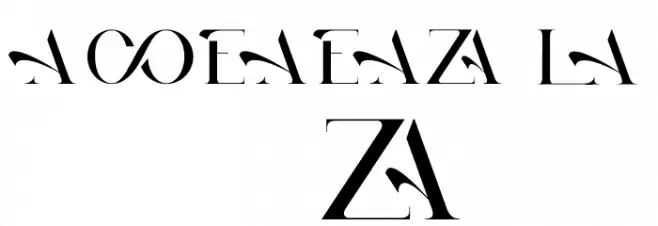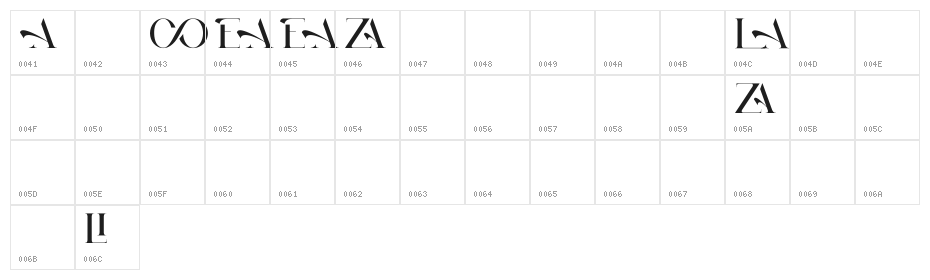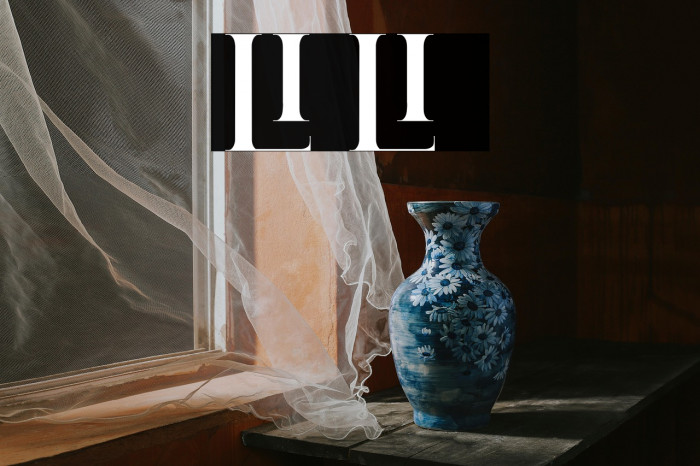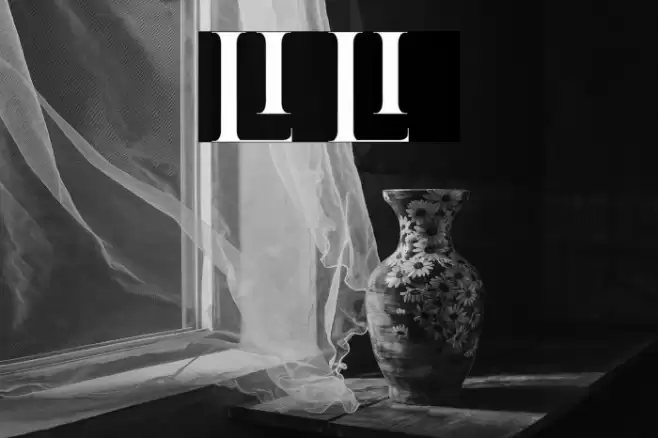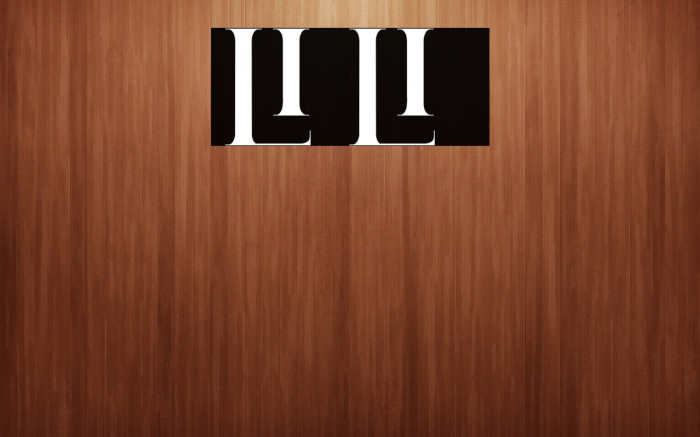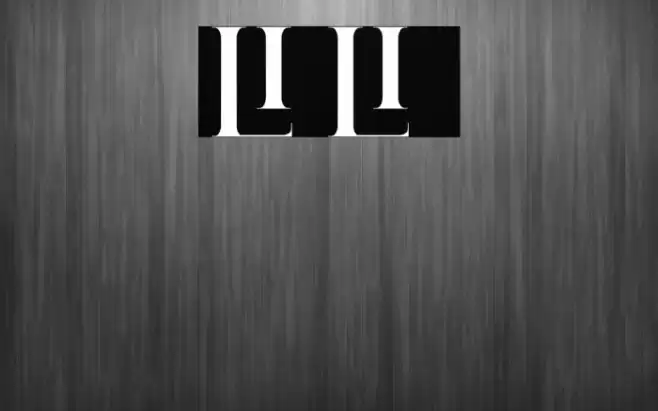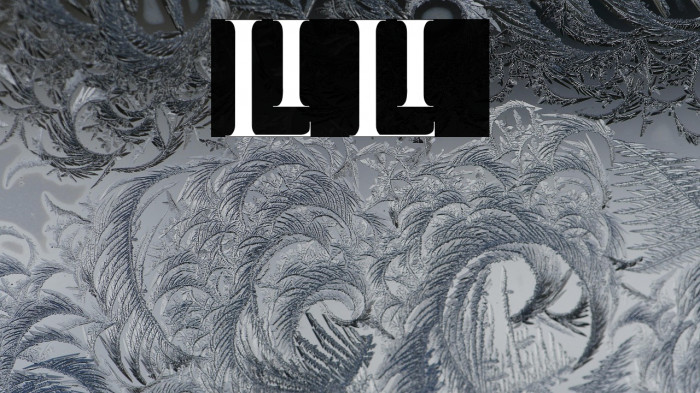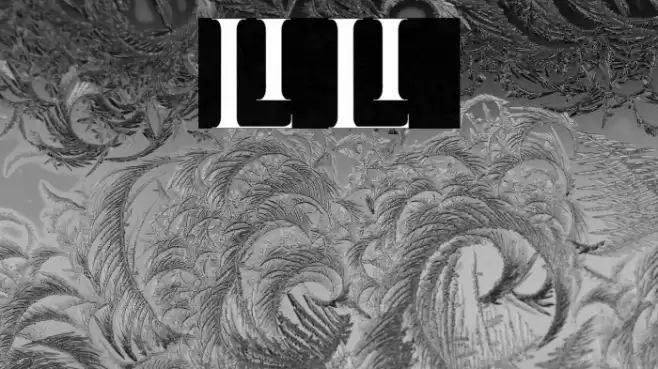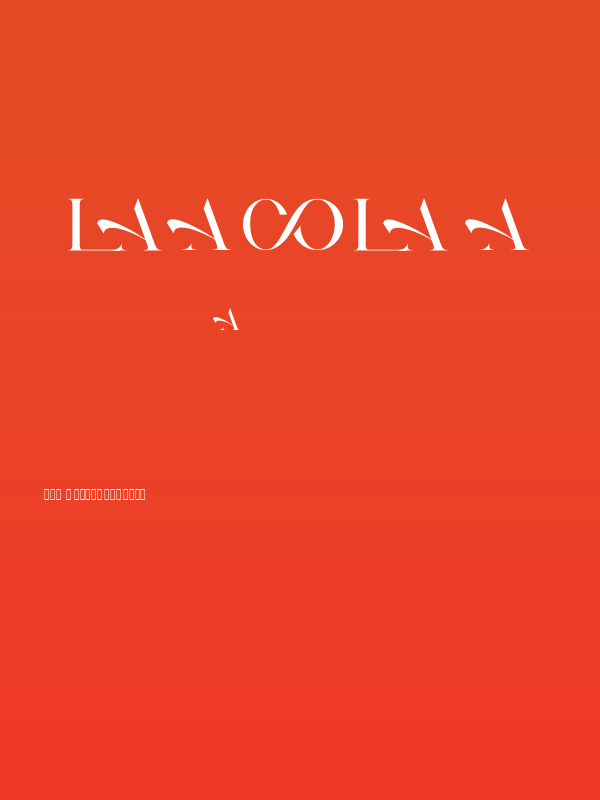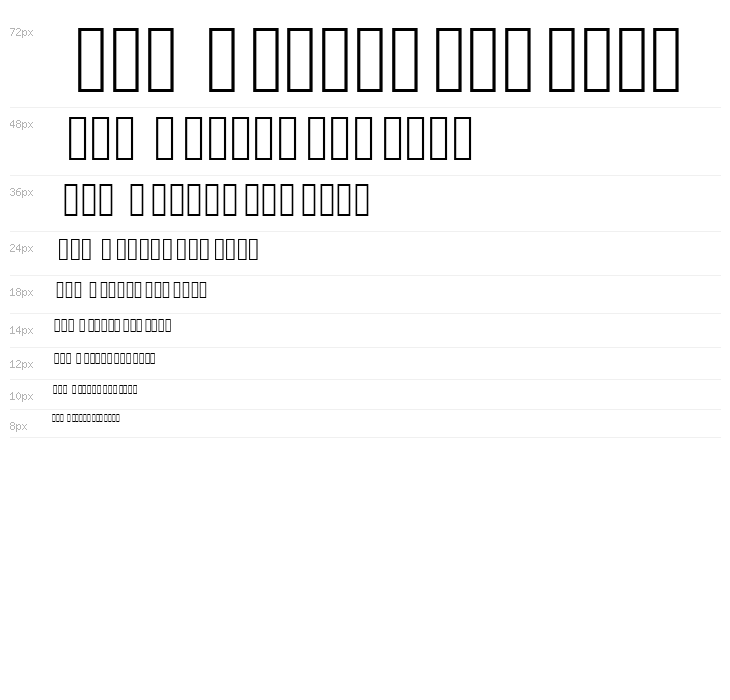
Blancoliga Font
Blancoliga Description
This font features a highly decorative and artistic style, characterized by its unique and intricate letterforms. Each character is adorned with elaborate flourishes and curves, giving it a distinct and elegant appearance. The font's design is reminiscent of calligraphic styles, with a modern twist that incorporates bold and striking elements. The overall aesthetic is both sophisticated and eye-catching, making it suitable for projects that require a touch of elegance and flair. The font's high contrast between thick and thin strokes adds to its dramatic and stylish look.
| Overall Style | Modern Decorative |
| Proposed Projects | Ideal for luxury branding, wedding invitations, high-end product packaging, and artistic posters. |